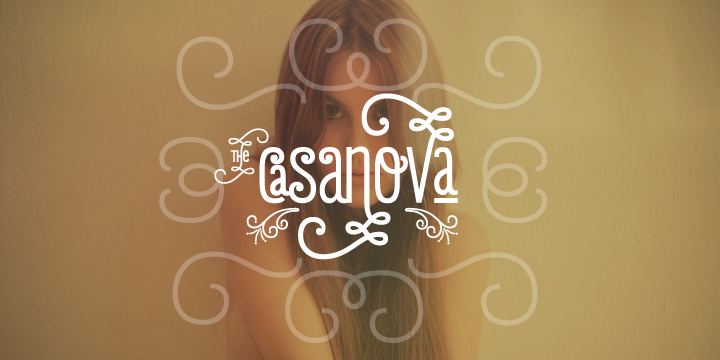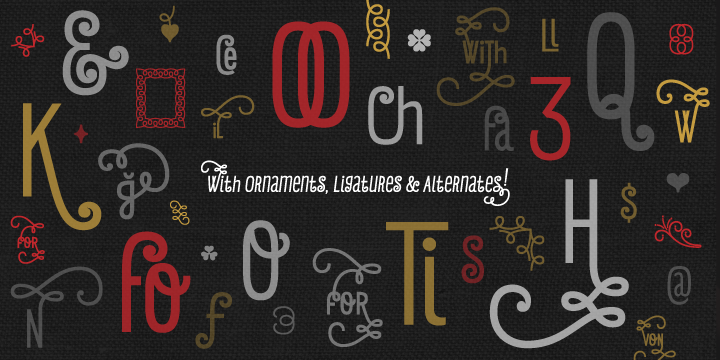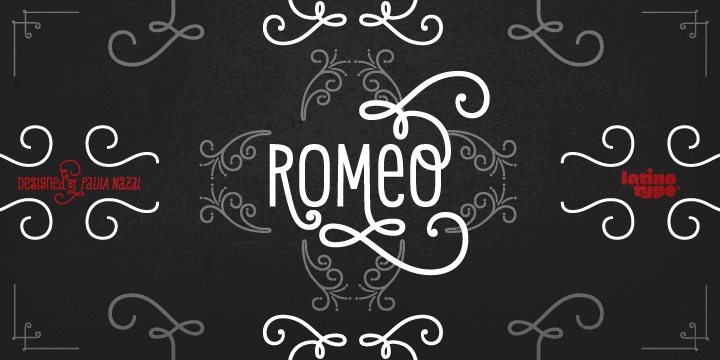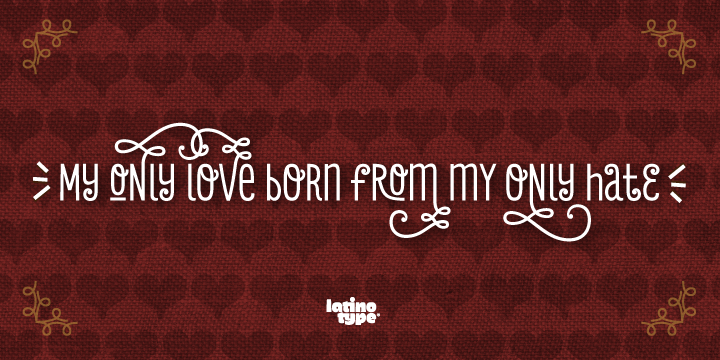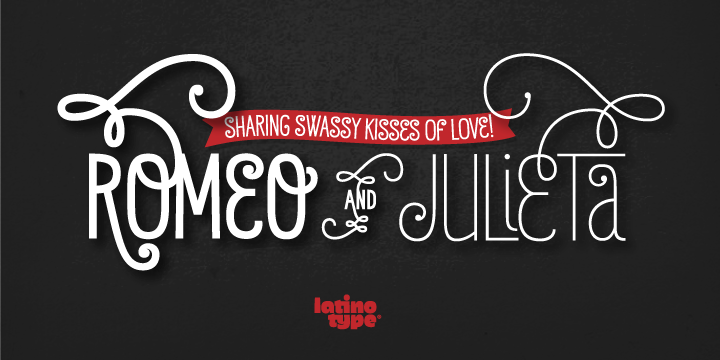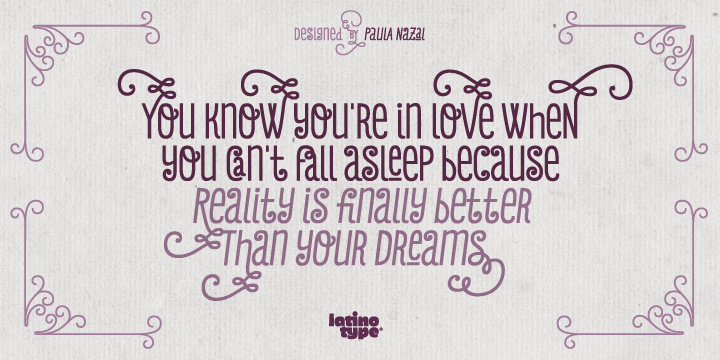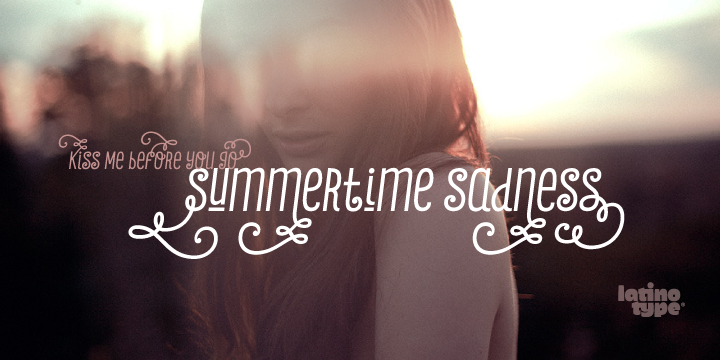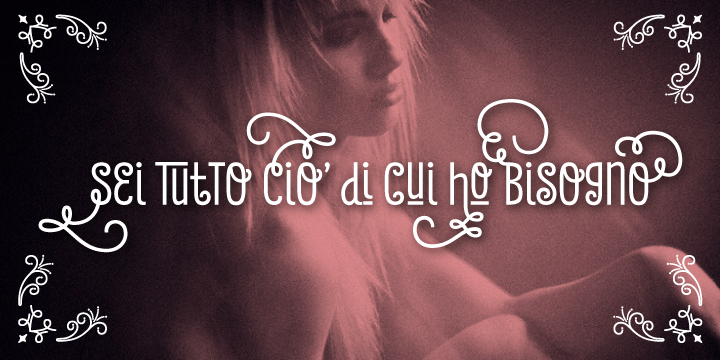
Romeo is a dingbat and hand display font family. This typeface has nine styles and was published by Latinotype.
Romeo is a condensed, unicase typeface full of swashy love.
Inspired by romanticism, Romeo is a charming and versatile typeface. By alternating uppercase and lowercase, and mixing them with alternate characters, ligatures, swashes and endings, you obtain endless possibilities of composition, with 810 glyphs available in the Pro font. In case you don’t need all these alternatives, there is also an Essential version consisting of 247 characters. In addition, Romeo has an affordable set of ornaments, connectors and catchwords to complete this attractive display system.
Designed by Paula Nazal Selaive.